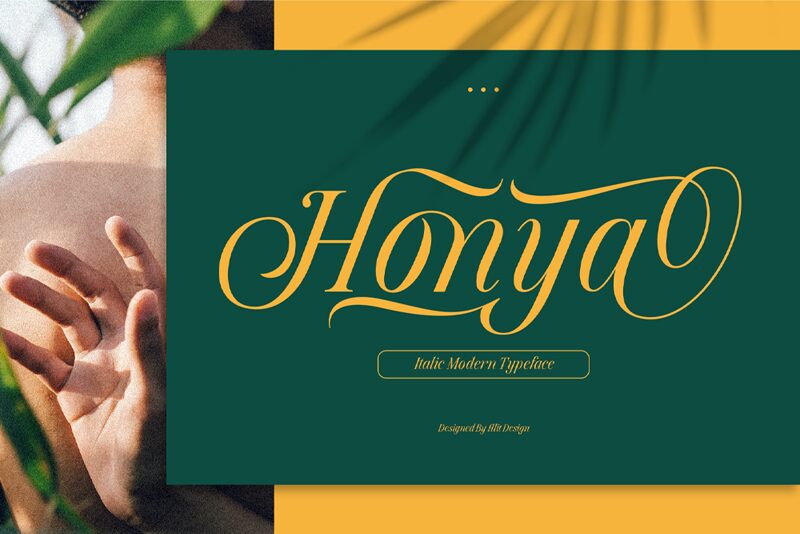
Honya is a captivating serif font crafted by Alit Design. With its condensed width and refined elegance, Honya exudes a sense of sophistication and timelessness. The striking interplay of thick and thin strokes creates a visually compelling contrast, drawing the reader's eye and evoking a sense of refinement. The font's subtly curved terminals and serifs add a touch of warmth and approachability, making it an ideal choice for a wide range of design applications.
Honya's versatility shines through its ability to seamlessly adapt to diverse design contexts. From editorial layouts and book covers to luxury brand identities and premium packaging, this font lends itself beautifully to projects that require a touch of elegance and sophistication. Its condensed form allows for efficient use of space without compromising legibility, making it a practical choice for both print and digital media.
Honya